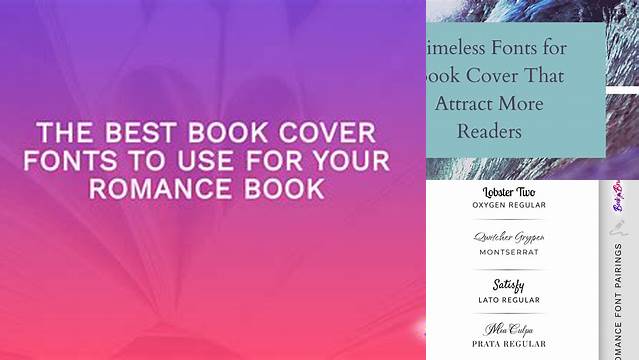
Romantic Book Cover Fonts: Captivate Your Readers
Choosing the right font for your romance novel's cover is super important, guys! It's the first thing readers see and can totally make or break whether they pick up your book. Let's dive into the world of romantic book cover fonts and how to choose the perfect one to grab attention and convey the right mood. We'll cover everything from classic serifs to modern scripts, ensuring your cover is as captivating as the story inside.
Why Font Choice Matters for Romance Covers
The font you select for your romance novel cover isn't just about aesthetics; it's a crucial element that communicates the genre, tone, and overall feel of your story. Think about it: a bold, modern sans-serif might work great for a thriller, but it would feel totally out of place on a sweet, historical romance. The right font can instantly signal to readers what kind of emotional journey they're about to embark on. It sets expectations and draws them in, making them want to know more about the characters and their love story. Consider fonts as the visual voice of your book, whispering promises of love, passion, and happily ever after.
Classic Serif Fonts for Timeless Romance
Classic serif fonts are like the little black dress of the font world – always in style and effortlessly elegant. Think of fonts like Garamond, Times New Roman, and Caslon. These fonts evoke a sense of tradition, sophistication, and timelessness. They're perfect for historical romance, classic love stories, or any romance novel that aims for a sense of enduring romance. The serifs (those little feet at the end of the strokes) add a touch of formality and readability, making them a great choice for both titles and body text. When you want your cover to whisper of old-world charm and enduring love, these fonts are your go-to. For example, Garamond is used in so many classic books, it has an innate sense of sophistication and old-world romance. It's very readable, and makes an elegant and sophisticated choice.
Elegant Script Fonts for a Touch of Flair
If you want to add a touch of flair and personality to your romance cover, elegant script fonts are the way to go. These fonts mimic handwriting and can range from delicate and flowing to bold and dramatic. Think of fonts like Brush Script, Edwardian Script, or even a custom calligraphy font. Script fonts add a personal touch, making the cover feel more intimate and inviting. They're perfect for contemporary romance, stories with a whimsical feel, or any romance novel that wants to convey a sense of warmth and emotion. Just be careful not to overdo it – too much script can be hard to read. Balance is key, guys! Edwardian Script is often used for wedding invitations and can be associated with elegance and romance. Pairing a clean, serif font for the author's name is something to consider to keep it legible.
Modern Sans-Serif Fonts for Contemporary Romance
For those of you writing contemporary romance, modern sans-serif fonts can give your cover a clean, fresh, and up-to-date look. Fonts like Helvetica, Arial, or even a more stylized sans-serif like Montserrat can work wonders. These fonts are simple, easy to read, and convey a sense of modernity. They're perfect for stories set in the present day, especially those that deal with career-driven characters or a fast-paced lifestyle. A sans-serif font can also be a great choice if you want your cover to feel minimalist and sophisticated. Make sure the font has enough personality to stand out and avoid choosing something too generic. Helvetica is a classic choice, but can be seen as bland. Consider other alternatives like Montserrat or Lato for a more modern feel.
Combining Fonts for a Dynamic Look
Don't be afraid to mix and match fonts on your romance cover! Combining a serif font with a script font or a sans-serif font can create a dynamic and visually appealing look. The key is to choose fonts that complement each other and create a sense of balance. For example, you could use a serif font for the title and a script font for the author's name, or vice versa. Just make sure the fonts don't clash and that the overall design is easy to read. A good rule of thumb is to stick to two or three fonts max. Combining fonts is about creating visual interest and hierarchy.
Color Psychology in Romance Book Covers
The colors you use on your romance book cover can have a huge impact on how readers perceive your story. Warm colors like red, pink, and orange evoke feelings of passion, love, and excitement. Cool colors like blue and purple can create a sense of calmness, serenity, or mystery. Consider the tone of your novel and choose colors that reflect the emotions you want to convey. For example, a steamy romance might benefit from a bold red or a vibrant pink, while a more gentle love story might be better suited to soft blues or purples. Color evokes emotions, so choose wisely!
Typography Hierarchy: Title, Author, and Subtitle
Typography hierarchy is essential for guiding the reader's eye and ensuring your cover is easy to read. The title should always be the most prominent element, followed by the author's name, and then the subtitle (if you have one). Use different font sizes, weights, and styles to create a clear visual hierarchy. For example, you could use a larger, bolder font for the title and a smaller, lighter font for the author's name. The goal is to make it easy for readers to quickly identify the key information on your cover. Readers will appreciate the ease of readability.
Font Trends in Contemporary Romance
Font trends in contemporary romance are constantly evolving, so it's important to stay up-to-date on what's popular. Right now, hand-lettered fonts, bold sans-serif fonts, and unique serif fonts are all trending. Pay attention to what's working for other authors in your genre and see if you can incorporate some of those trends into your own cover design. However, don't just blindly follow trends – make sure the font you choose is still a good fit for your story. Use what works best for you and your story. Trends are great for inspiration, but your story is what matters.
Final Thoughts: Making Your Book Cover Font Choices Count
In conclusion, guys, the fonts you choose for your romance book cover can make all the difference in attracting readers and conveying the essence of your story. Take the time to explore different font options, experiment with font pairings, and consider the overall aesthetic you want to achieve. By understanding the principles of typography and applying them thoughtfully, you can create a book cover that not only looks beautiful but also effectively communicates the heart and soul of your romance novel. So go forth and make those font choices count! Make font choices that matter!